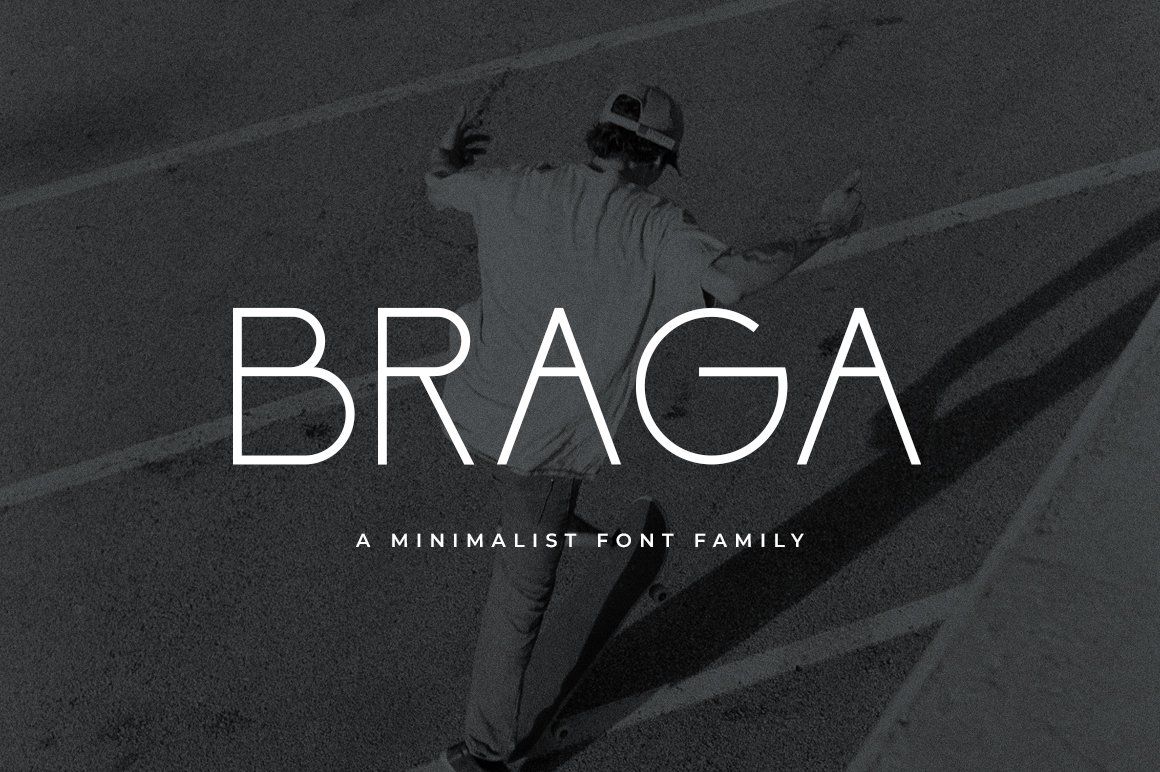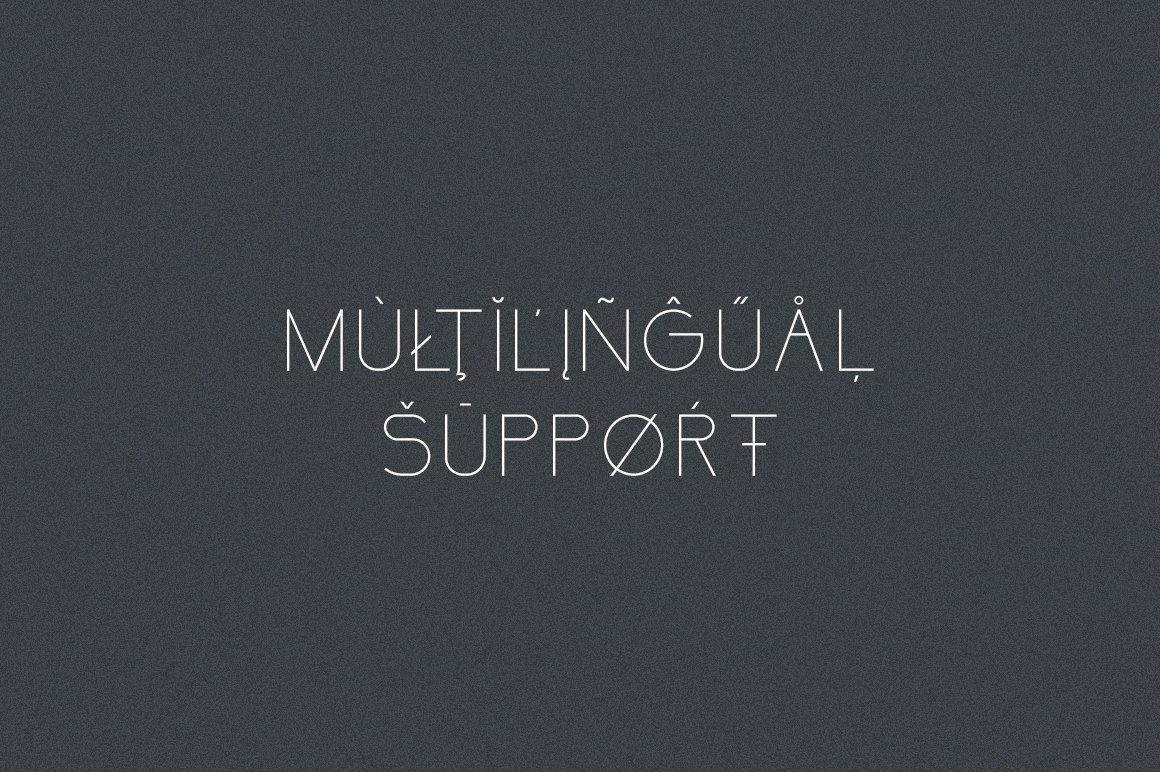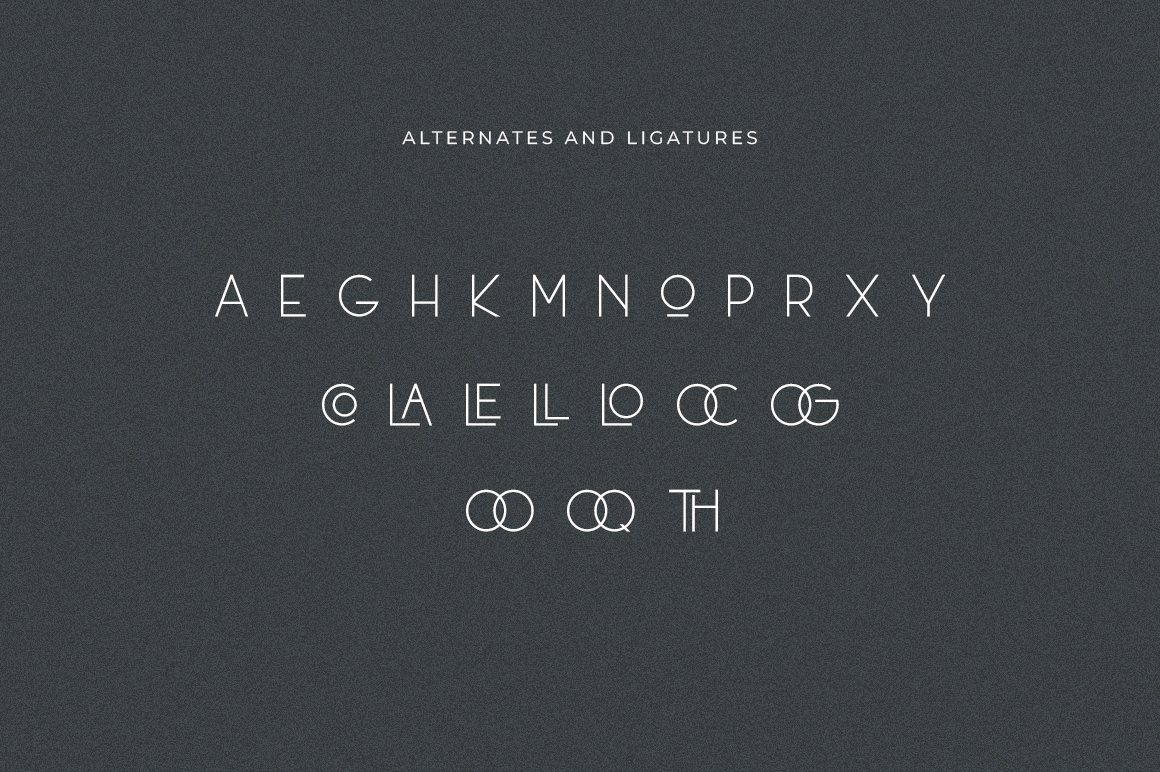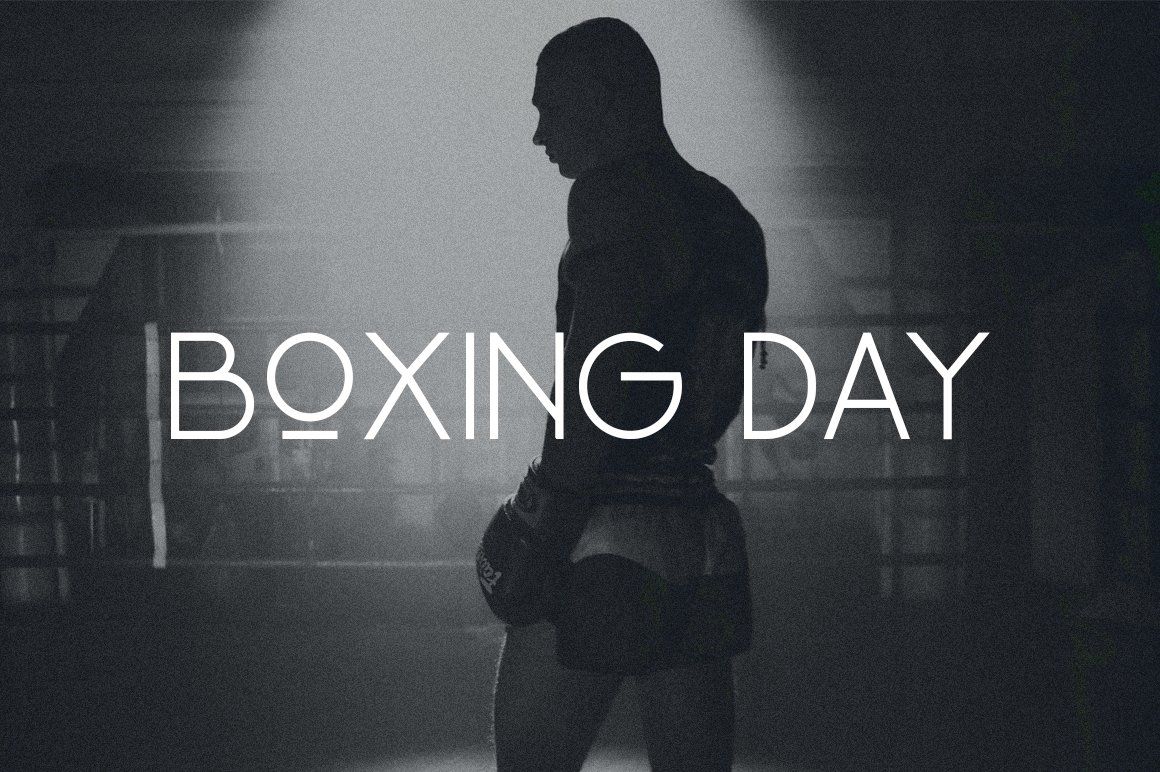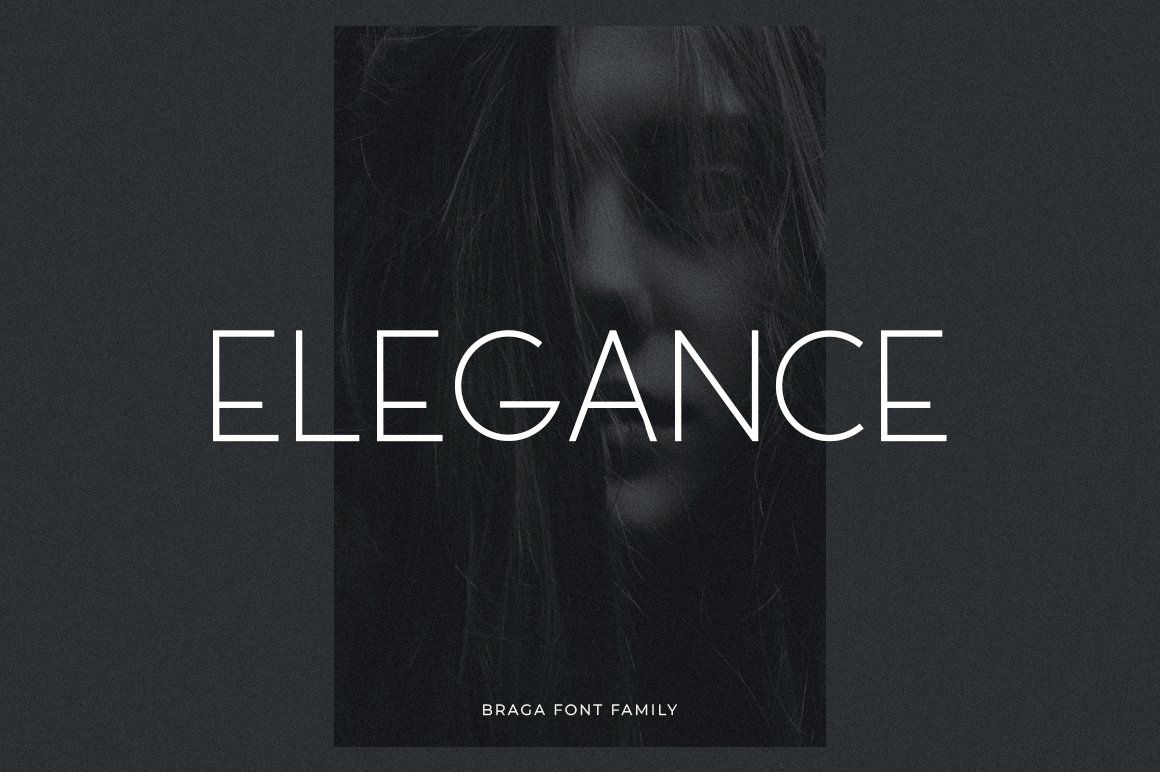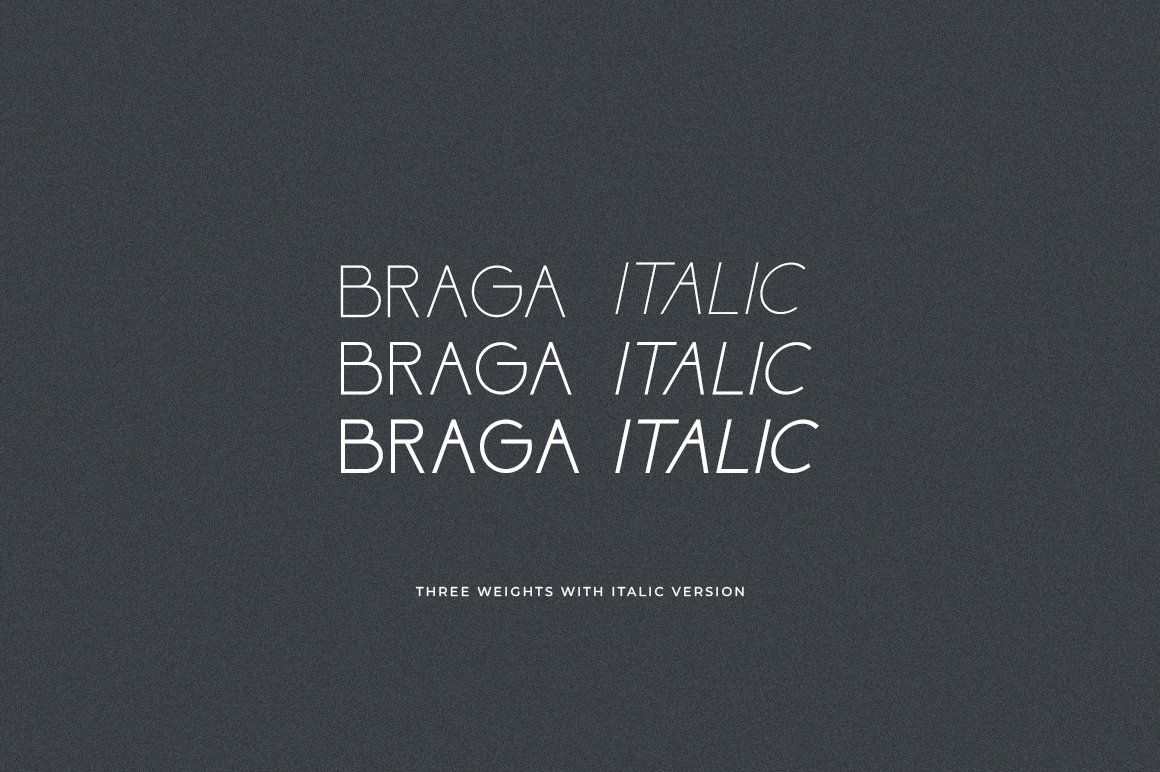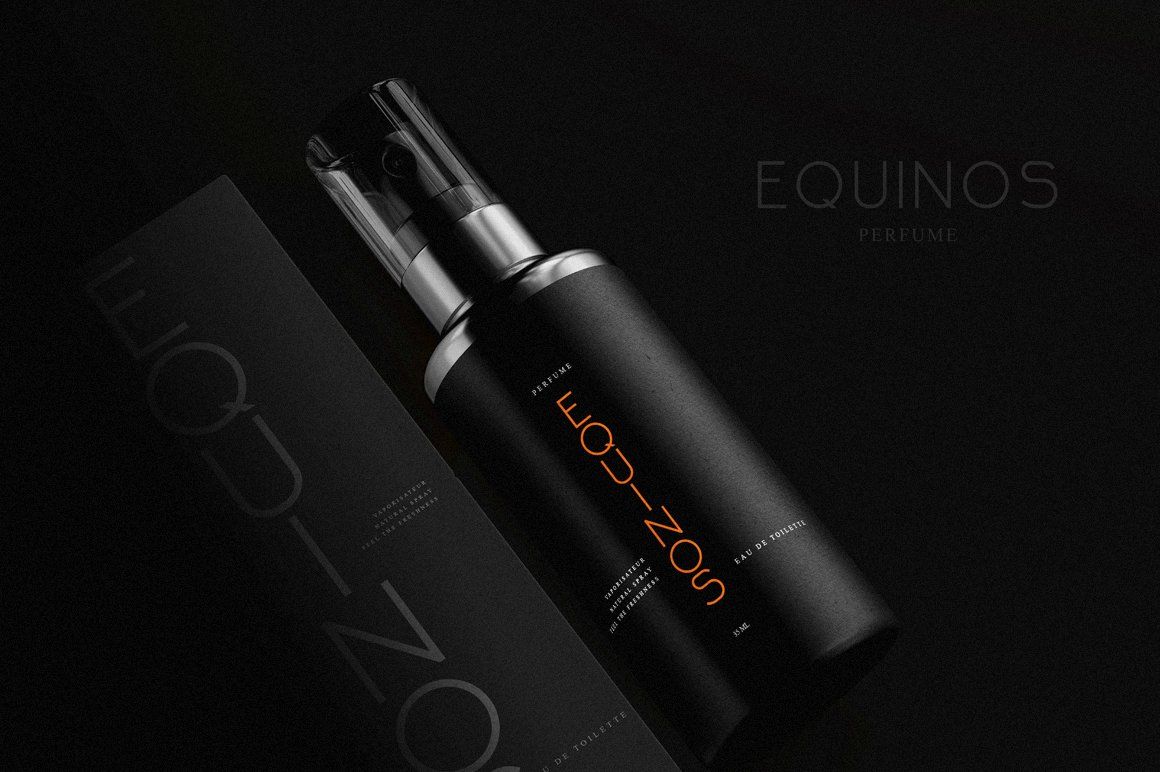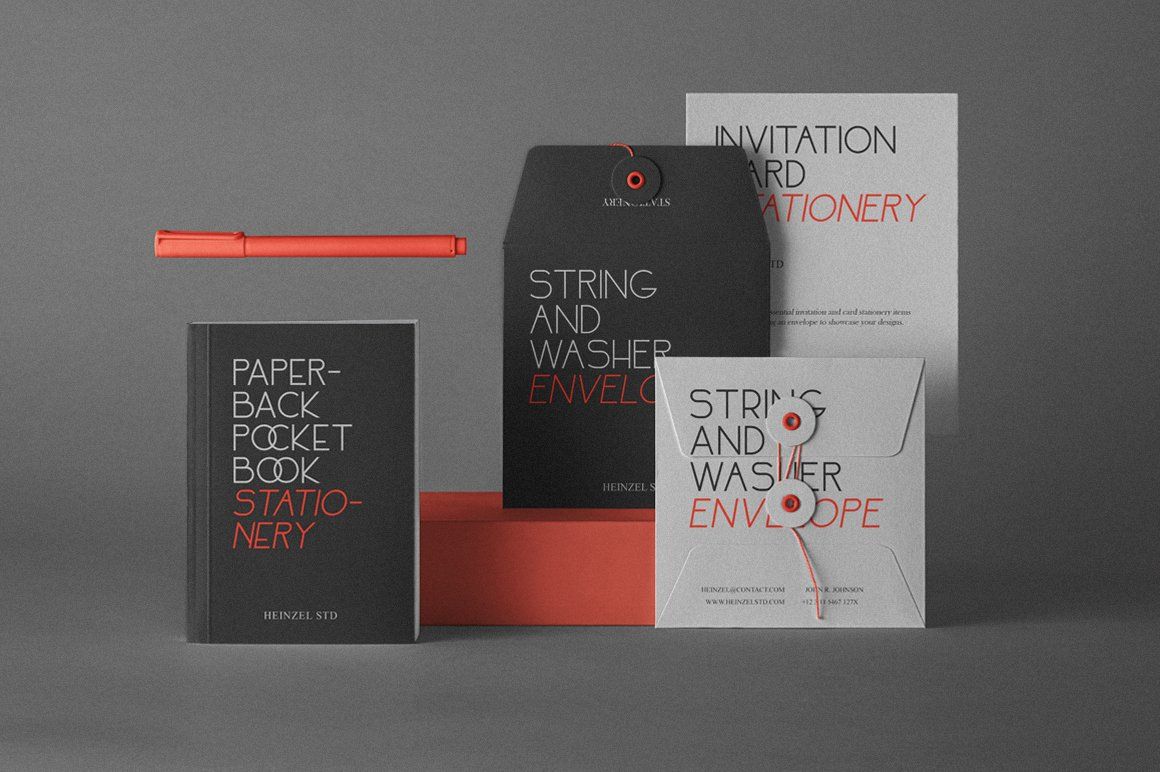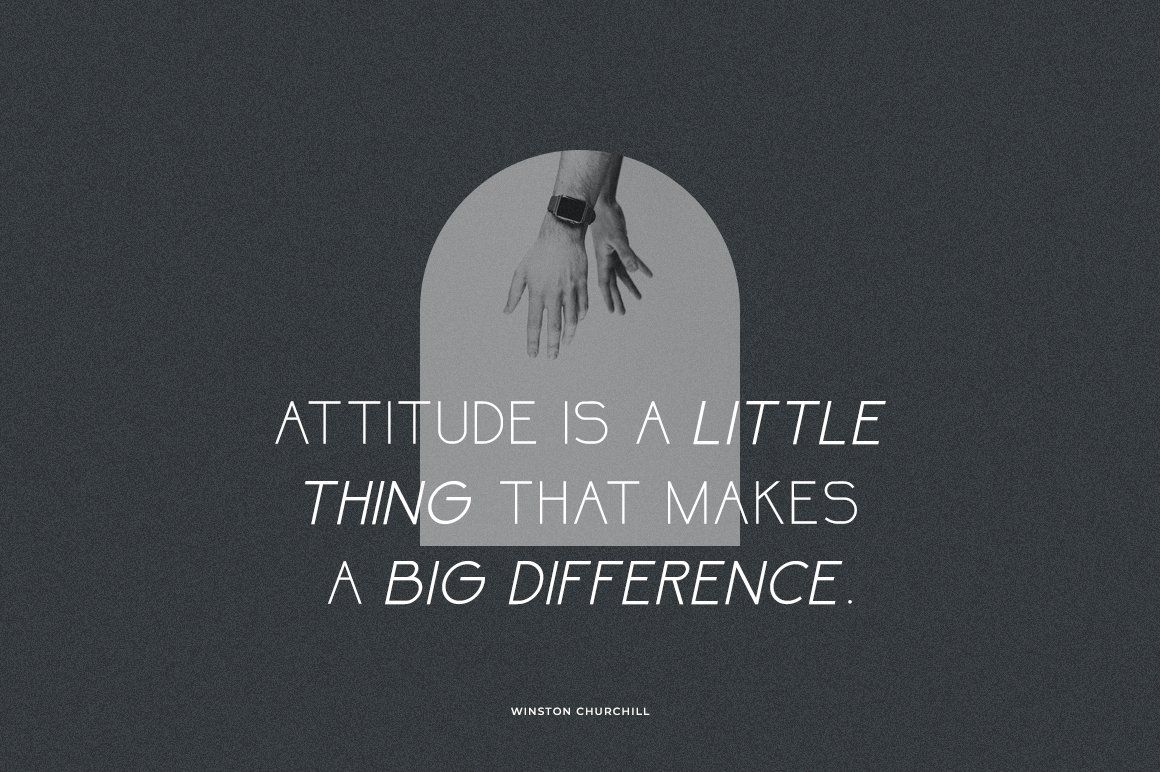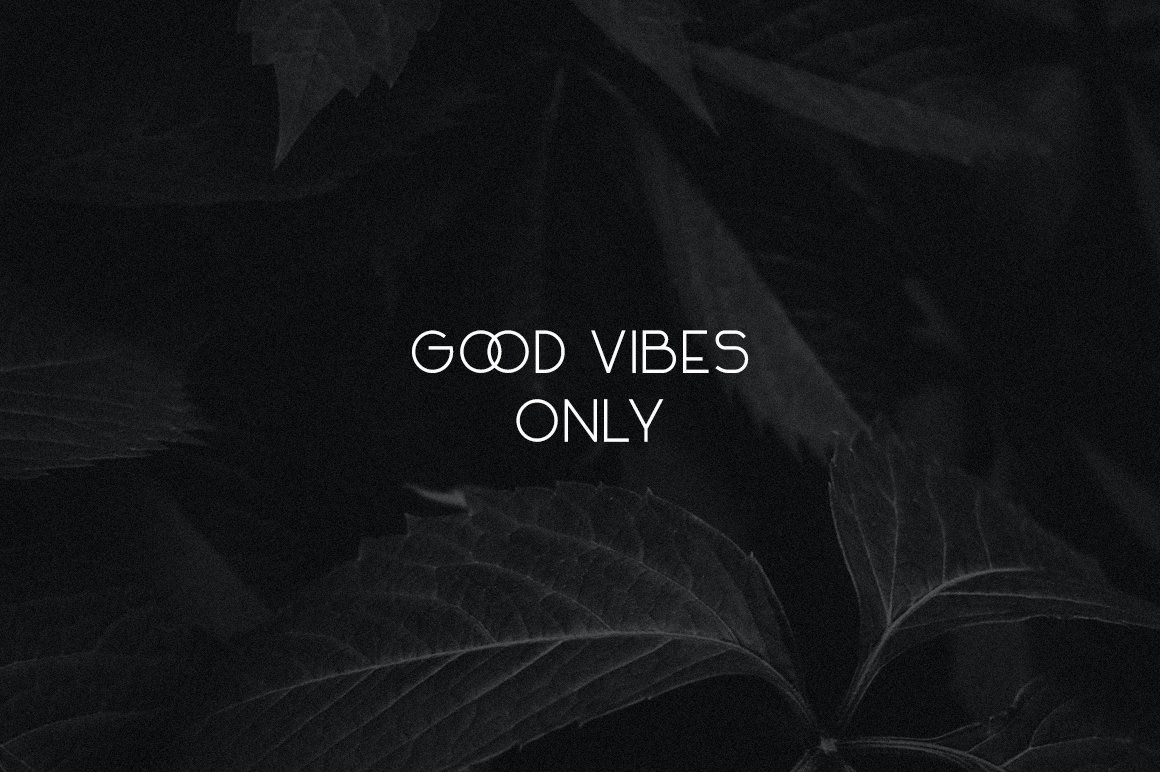
Braga is an elegant and modern sans serif font. Fall for its ravishing style and use it to create gorgeous wedding invitations, beautiful stationary art, branding, logos, headlines, headings, magazines, eye-catching social media posts, and much more! This font is PUA encoded which means you can access all of the amazing glyphs and ligature with ease!
Braga Features:
• 3 Weight (Thin, Regular and Bold) with Italic Version
• All caps, numerals, and more punctuation.
• Multilingual support for various languages
• Stunning Ligatures